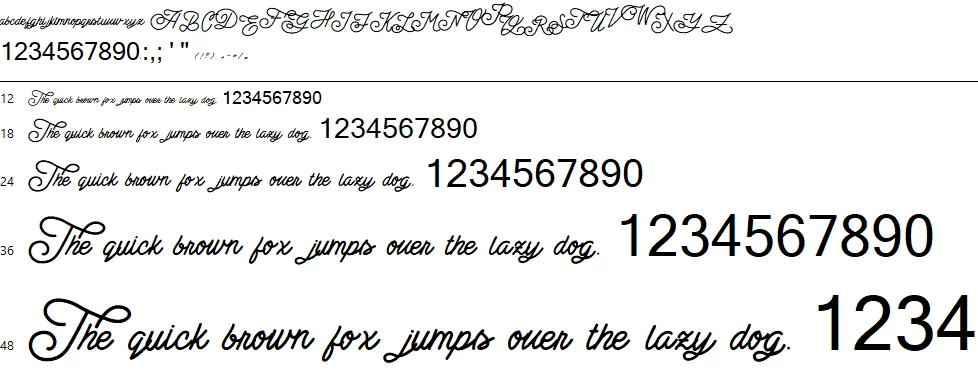
Let us introduce you to a font called Foundry Kit Font updated on 1 Feb 2018. Foundry Kit is a stylish Handwritten Calligraphy Script Font designed and shared by Micromove. With uppercase, lowercase, Numeric, and some Special character with alternate, Foundry Kit Font is usable as a Personal & Commercial.
Foundry Kit Font is very compatible with logos, branding, invitations, stationery, wedding designs, logos, business cards, covers, on shirts, social media posts and more. Also, this font is very useful for creating a great image with a variety of colors and text.
| Name | Foundry Kit Font |
| Style | Handwritten, Calligraphy, Script font |
| Author | Micromove |
What type of font is Foundry Kit?
Ans: Foundry Kit is a Handwritten Calligraphy script font designed by Micromove.